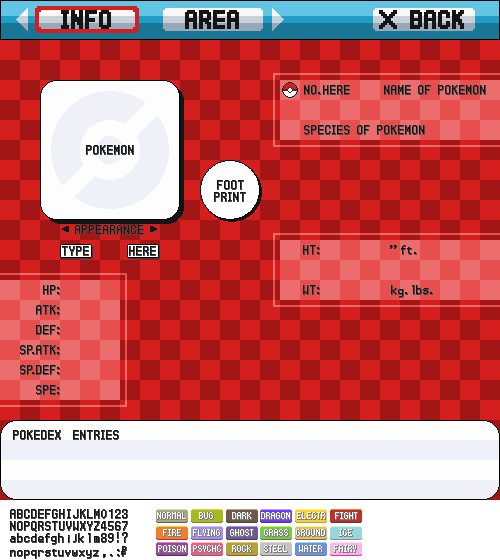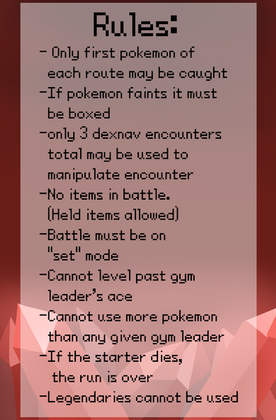
This will probably be updated as I find things wrong with it (faulty kerning, missing letters, etc.) so if there's an issue, comment below and check back soon for updates!This font is inspired by the GBA Pokémon games (RSE & FRLG) and mostly ripped directly from them. There are a few minor modifications I made for the sake of being used for RMP but for the most part this should be useful for general purposes.